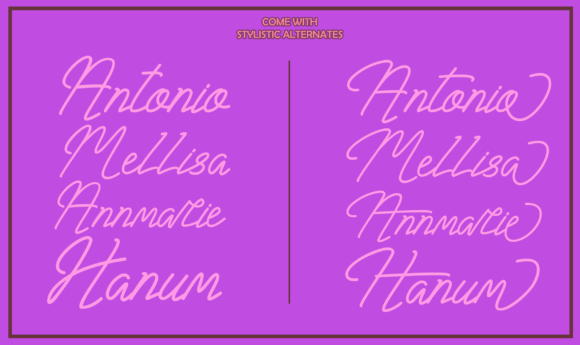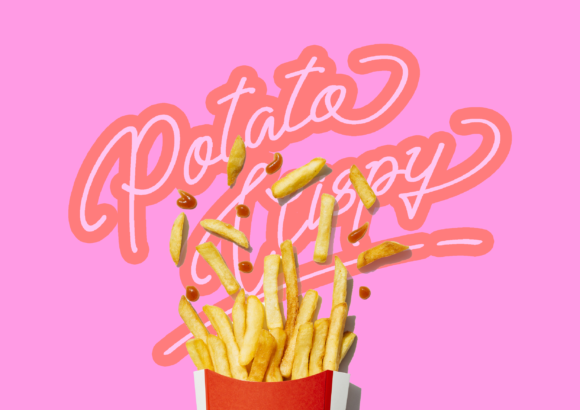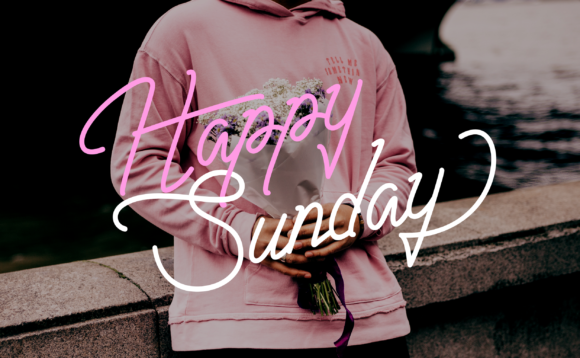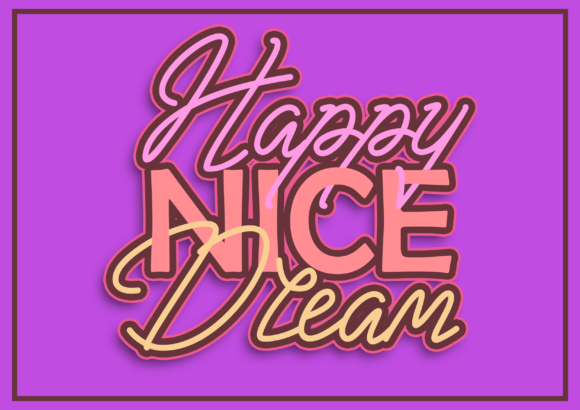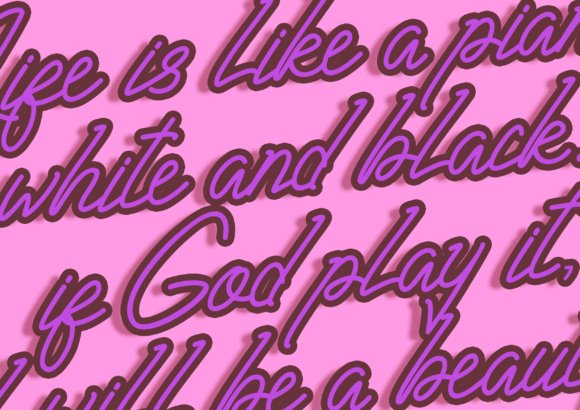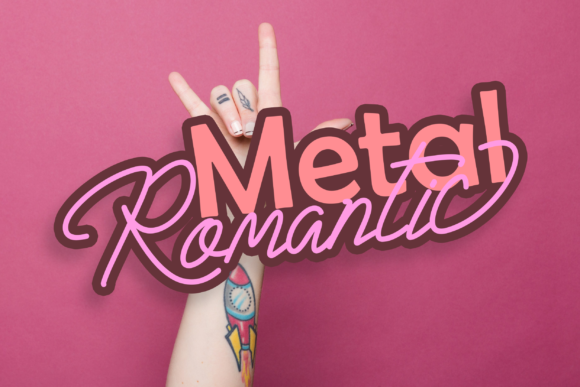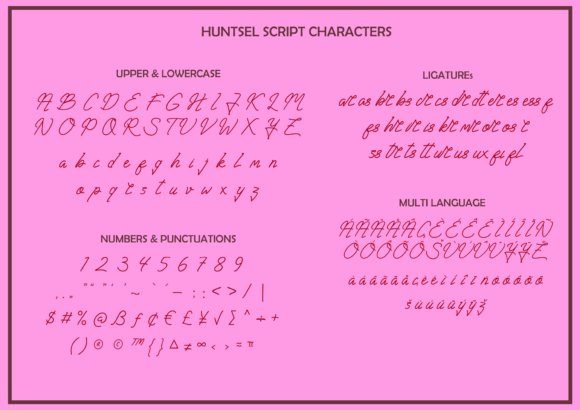
Huntsel Script Font
About Huntsel Script Font
Huntsel Script is a simple yet timeless and flowing handwritten font. Its beautiful and distinct style is incredibly fitting for a wide pool of contexts. Fall in love with its versatile feel and use it to create spectacular designs!